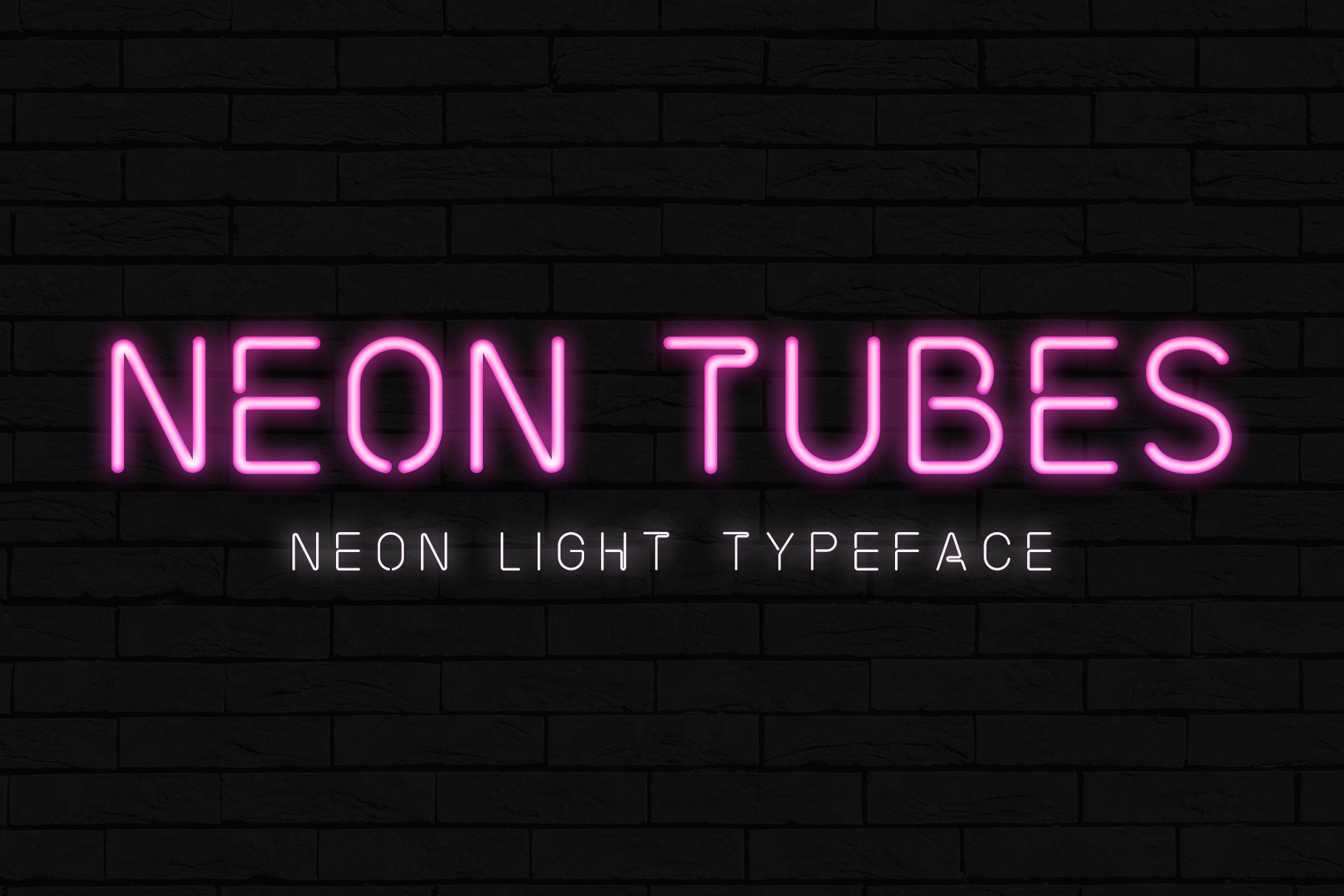
Neon Tubes is a typeface inspired by real world neon light signs, it features minimal letter forms with smooth rounded corners and, true to real neon tubes, strictly uses lines with open start and end points. This font is perfect for adding your own glowing light effects or can be used to actually design real world neon signs.
NEON EFFECT If you want to create a neon effect with this font you have several options. You can buy effects here on CreativeMarket, you could take a look at this tutorial on how to create a neon effect in Photoshop: http://bit.ly/2sshB7q , or you can find some free to download options in this blog post: http://bit.ly/2sirshG . Want us to include an effect with this font? Let us know in the comments and we'll get started :)